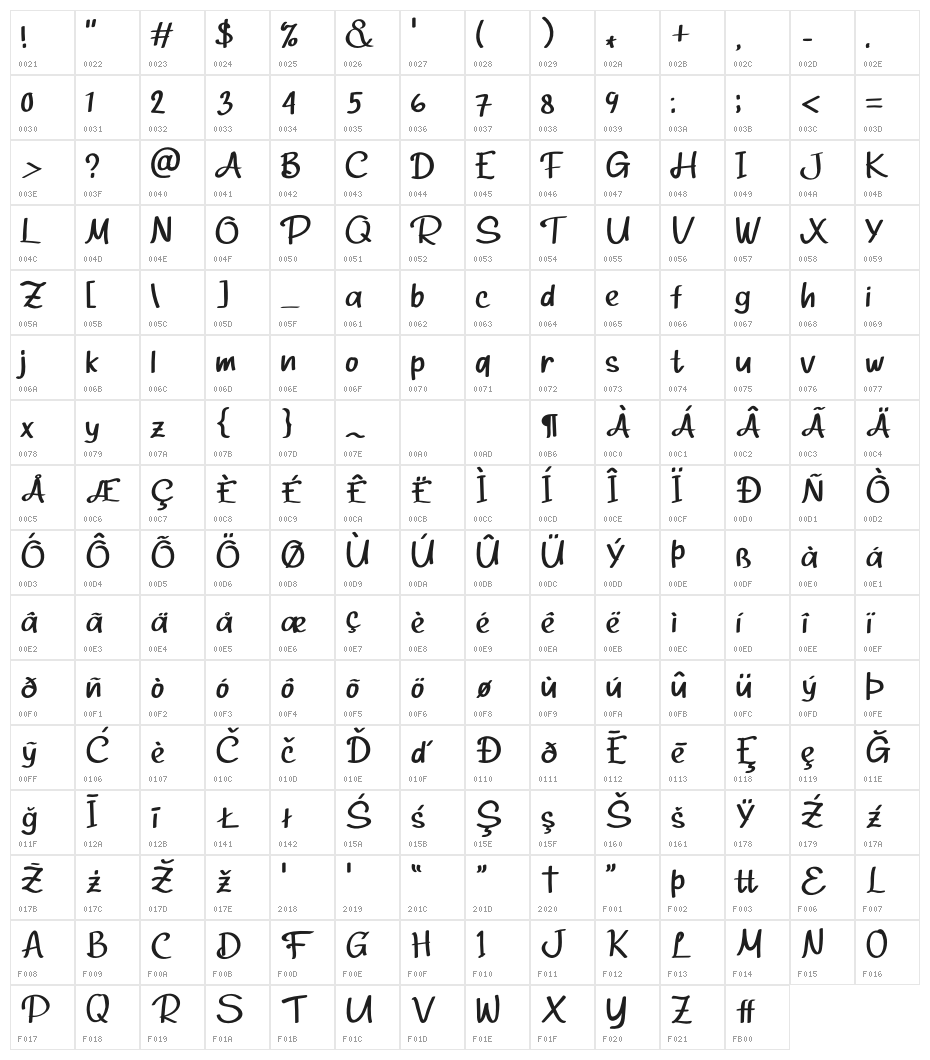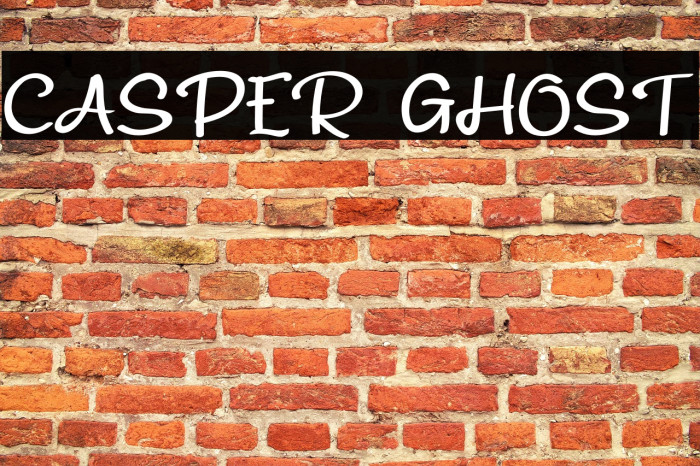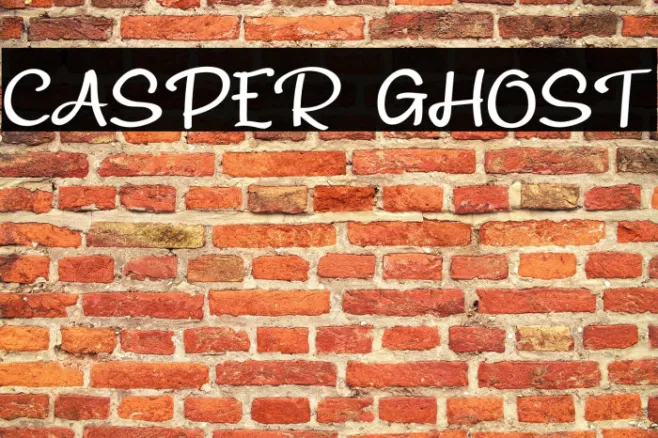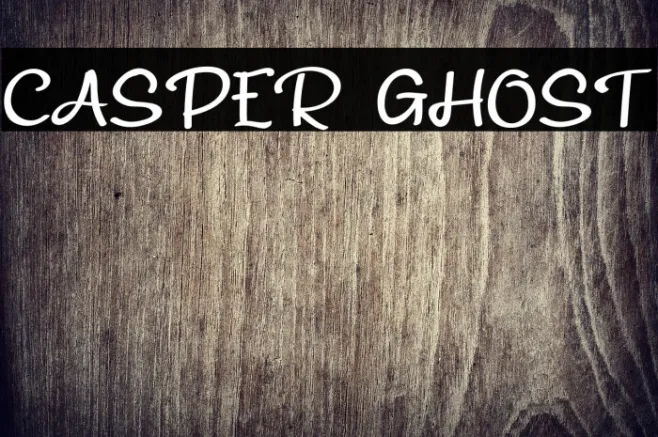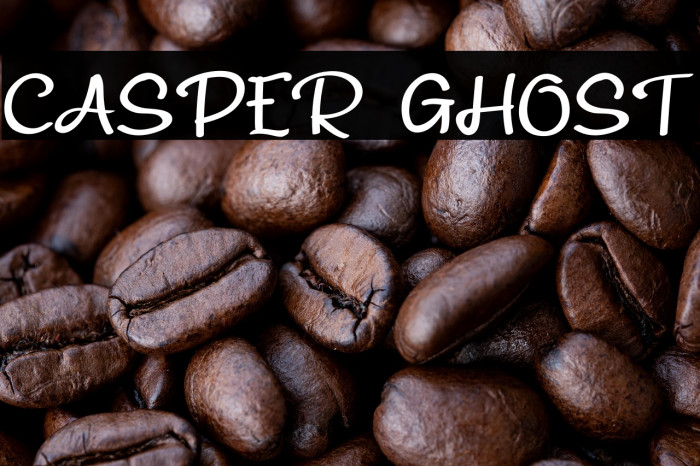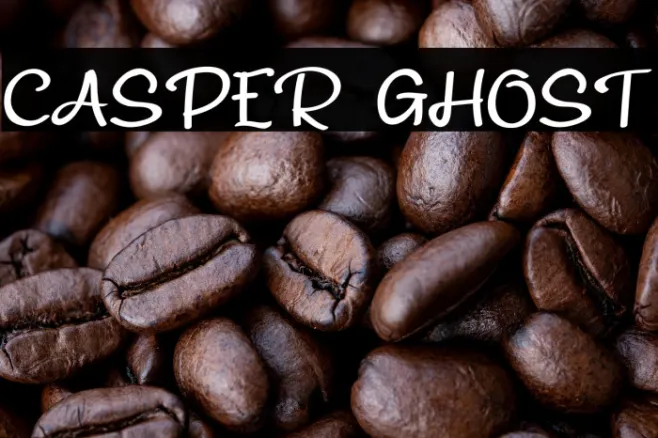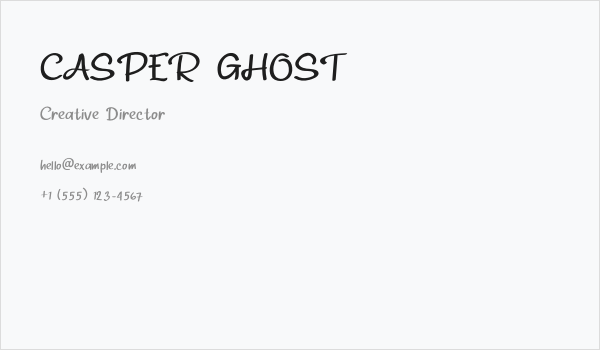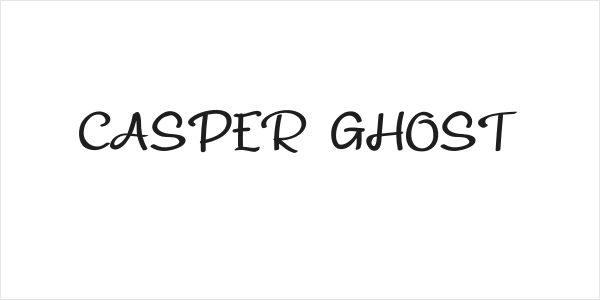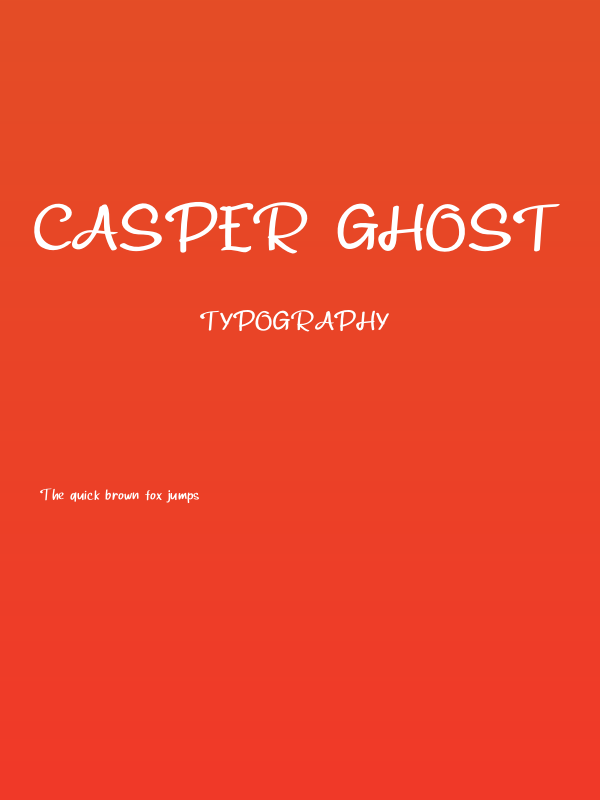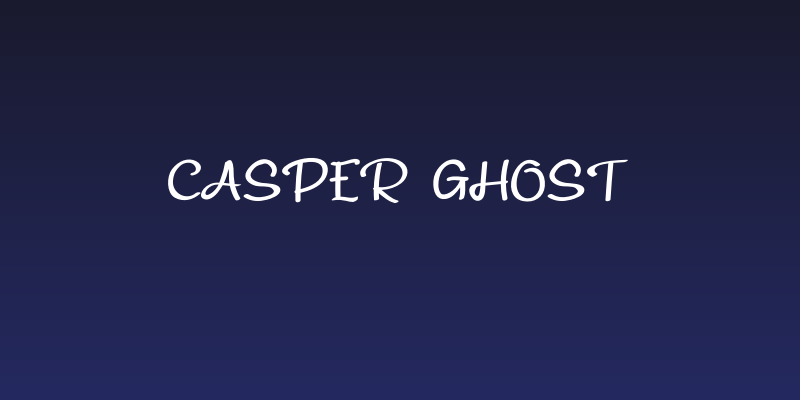
CASPER GHOST Font
CASPER GHOST Description
This font features a playful and whimsical design, characterized by its handwritten style with a smooth, flowing appearance. The letters have a casual, informal feel, with rounded edges and a slight slant, giving it a dynamic and lively look. The uppercase and lowercase letters maintain consistency in style, with the uppercase being slightly more formal. The numerals and special characters are designed to match the overall aesthetic, ensuring a cohesive appearance across all elements. This font's unique style makes it suitable for projects that require a touch of personality and creativity.